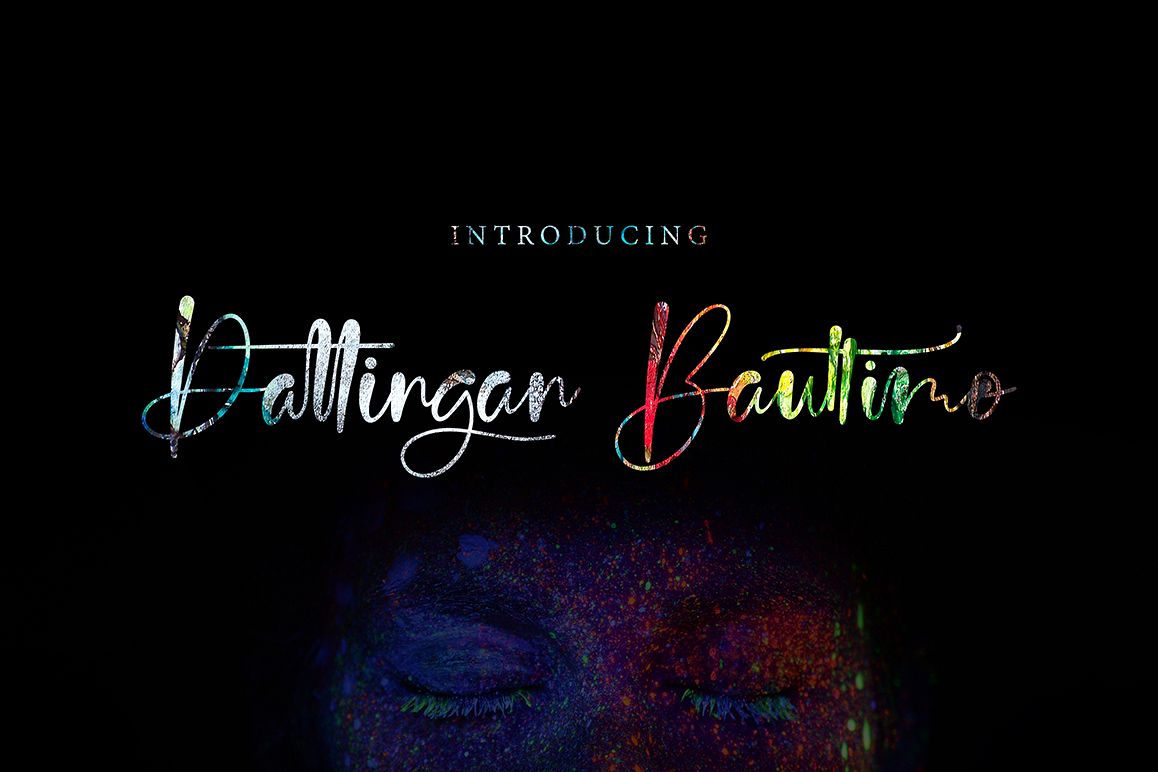
Dattingan Bauttimo
Dattingan Bauttimo script font font with new style, this font will perfect for many different project ex: quotes, logo, blog header, poster, banding, fashion, apparel, letter, invitation, stationery, etc...